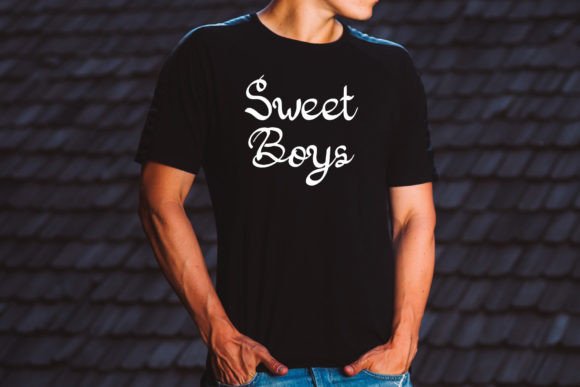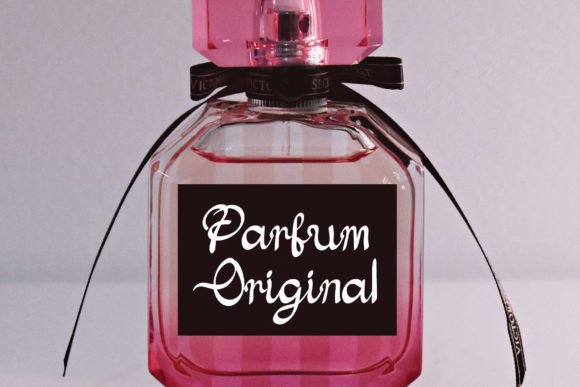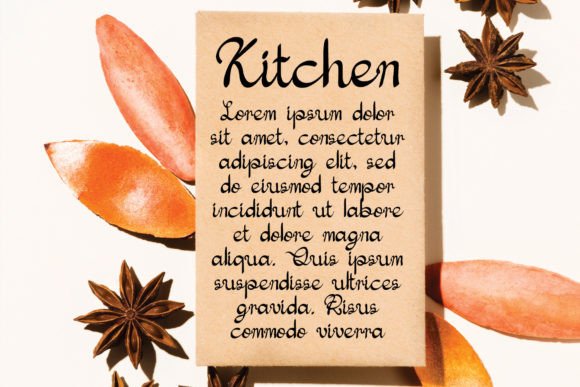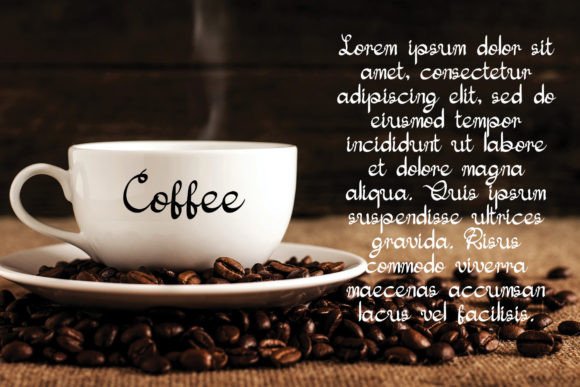
Retro Font
About Retro Font Download
The Retro Font Download is a delicate, elegant, and flowing handwritten script designed to elevate your creative projects. With its graceful curves and balanced structure, this font adds charm and sophistication to both personal and professional designs. Whether you’re creating wedding invitations, greeting cards, or branding materials, Retro ensures your work stands out with timeless beauty.
A Flowing Script with Balanced Characters
The Retro script font combines the elegance of classic handwriting with a modern design approach. As a result, it feels polished, versatile, and easy to adapt. Furthermore, it transitions seamlessly from small stationery projects to bold display work, making it an essential tool for creatives.
Handwritten fonts always bring a personal and intimate touch. The Retro Font is ideal for wedding invitations, thank you notes, birthday cards, and seasonal greetings. Because of its flowing handwritten style, every design feels warm and sophisticated. In addition, it ensures that your stationery projects leave a lasting impression.
Branding and Logo Design with Retro Font
Typography is crucial for shaping brand identity. The Retro handwritten font is excellent for boutique logos, packaging, and promotional materials. Its elegant and smooth handwritten style makes brands appear approachable yet professional. Therefore, it is especially suitable for fashion, lifestyle, and creative industries.
Posters, Titles, and Editorial Layouts
The Retro Font Download also shines in posters, banners, magazines, and book covers. It remains legible in both large and small sizes while adding a handwritten touch of sophistication. Consequently, it is a reliable choice for designers who want style and readability together.
In the fast-paced digital world, fonts must be adaptable and attractive. The Retro typeface integrates effortlessly into Instagram posts, Pinterest graphics, YouTube thumbnails, and blogs. Because of its elegant handwritten rhythm, it ensures your digital projects look professional and stylish.
Why Designers Choose Retro Typeface
Designers love fonts that balance beauty with usability. The Retro handwritten script maintains its flowing and graceful character while staying easy to read. This makes it a reliable option for both professionals and hobbyists. Moreover, its timeless style ensures it remains trendy for future projects.
Add Timeless Elegance to Your Projects Today